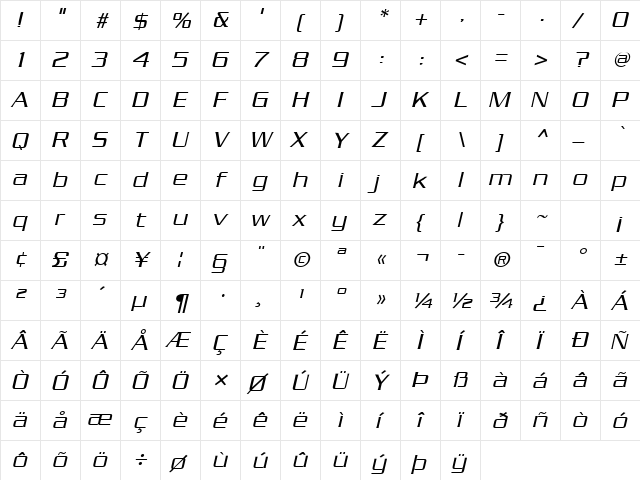
Chainlink Oblique
Design Context for Chainlink Typeface
Chainlink is a composed and adaptable typeface that performs quietly and consistently across a wide range of design contexts. Its italic angle brings a sense of urgency and motion to the letterforms.
Pro Tip: Try Chainlink for annotation and caption copy alongside an upright companion — the contrast in angle creates a dynamic but ordered typographic system.